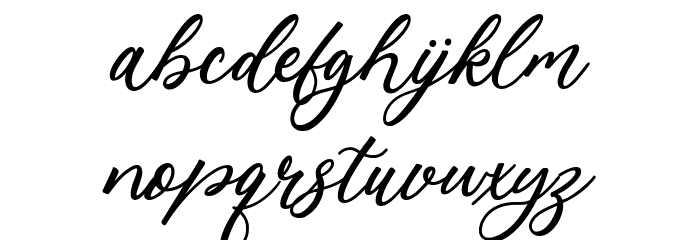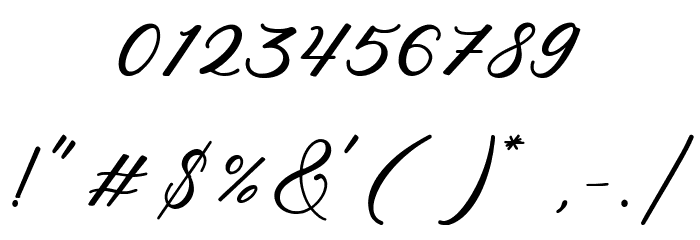
Kailey Latief Font
This font exudes elegance and fluidity, characterized by its cursive script style. The letters are interconnected with smooth, flowing strokes that mimic the natural motion of handwriting. The uppercase letters are slightly more embellished, with graceful loops and swirls, while the lowercase letters maintain a consistent rhythm and balance. The numerals and special characters are crafted with the same attention to detail, ensuring a cohesive look across all text elements. This font is perfect for projects that require a touch of sophistication and personal flair.
Elegant cursive script with flowing, interconnected strokes.
- Proposed Projects: Ideal for wedding invitations, personal branding, greeting cards, and elegant logos.
- Category: Script
- Overall Style: Elegant
- Use Case: Logos, Invitations, Personal Branding